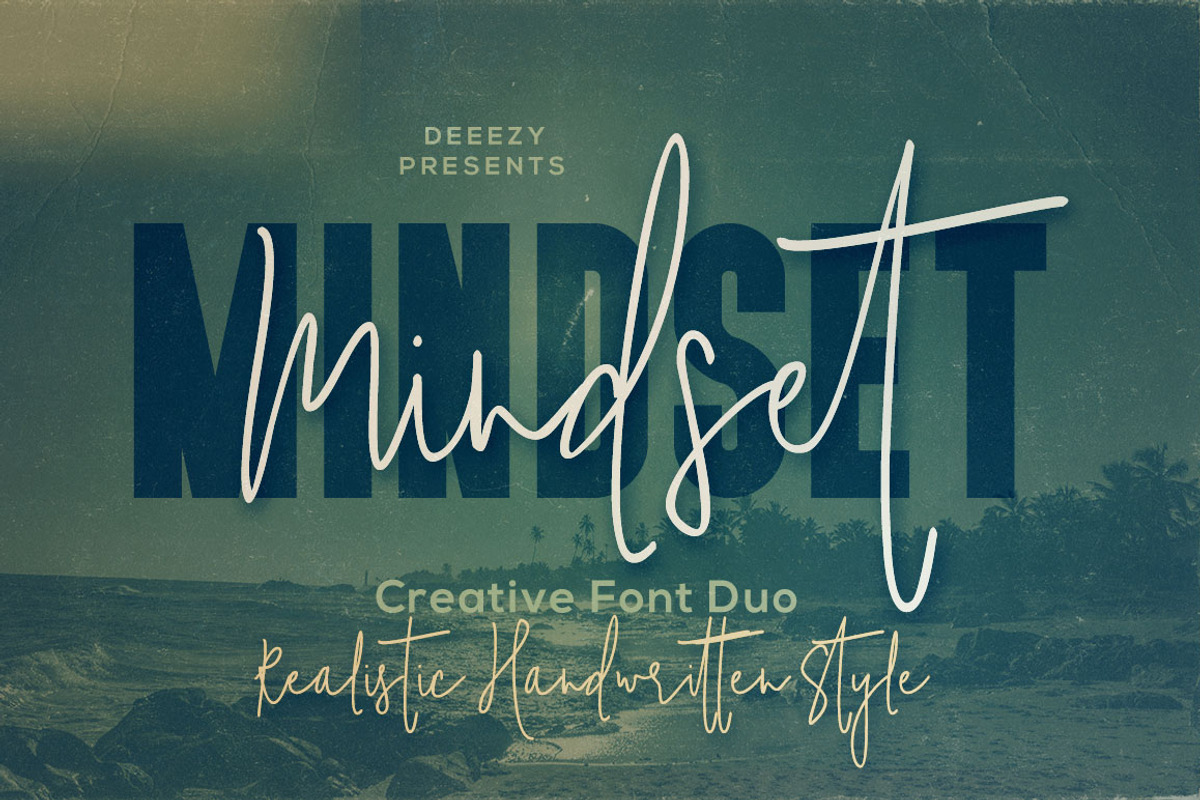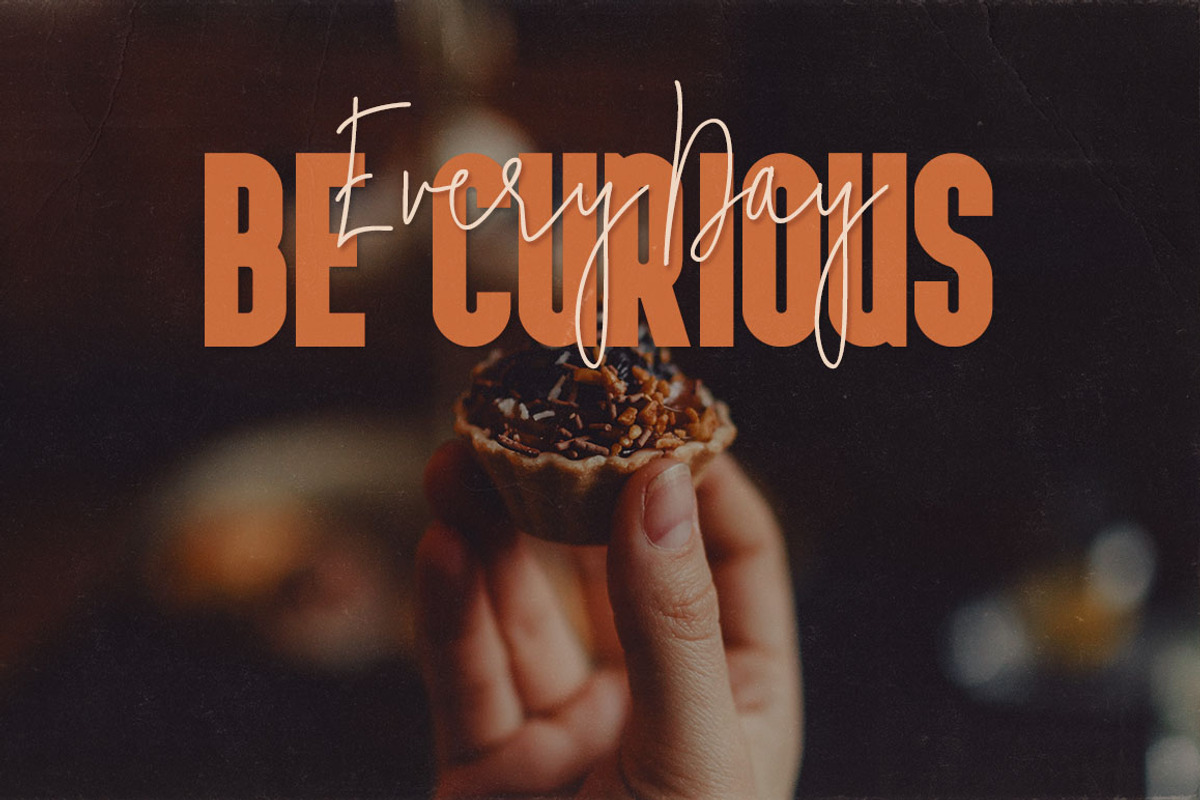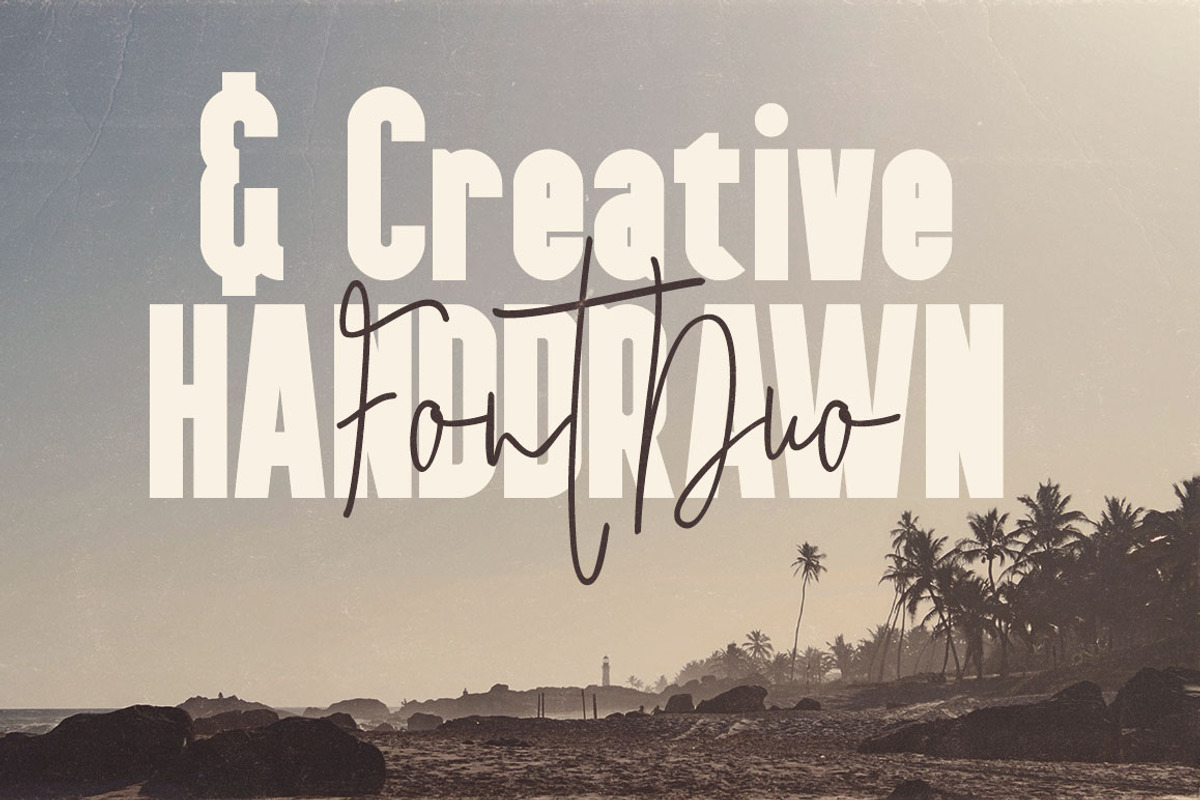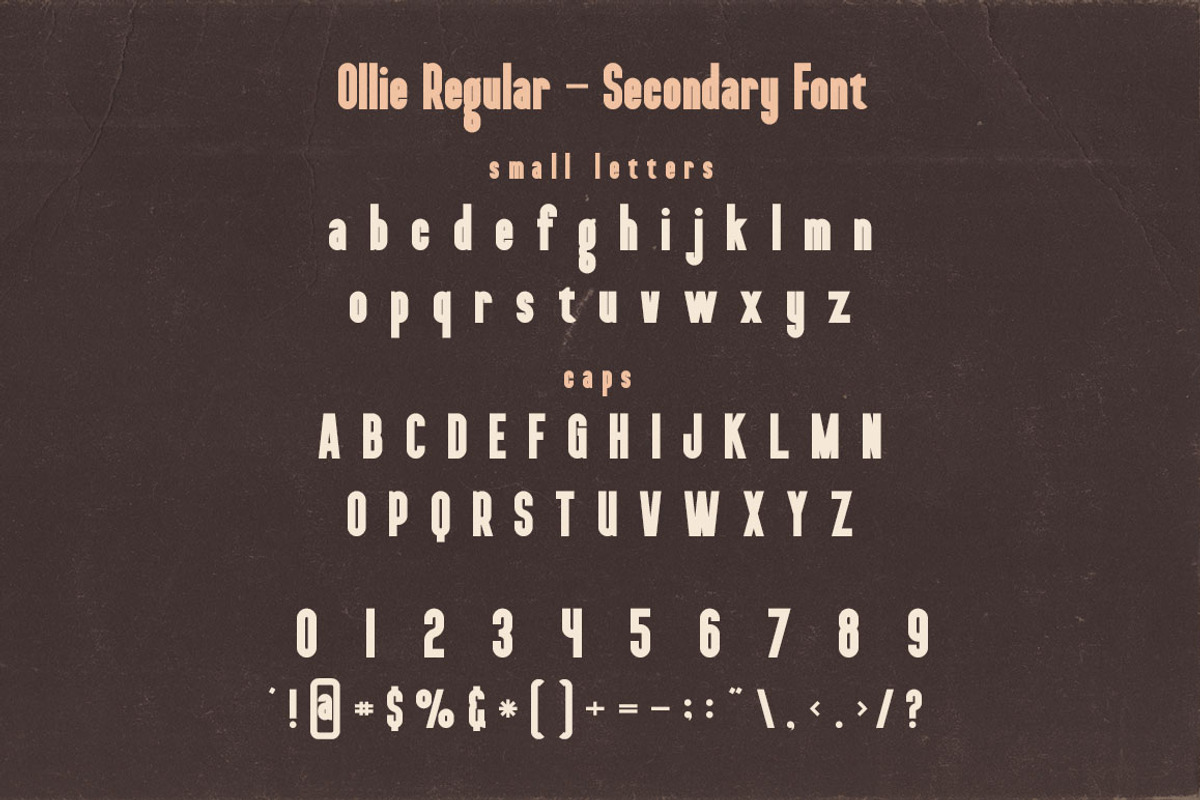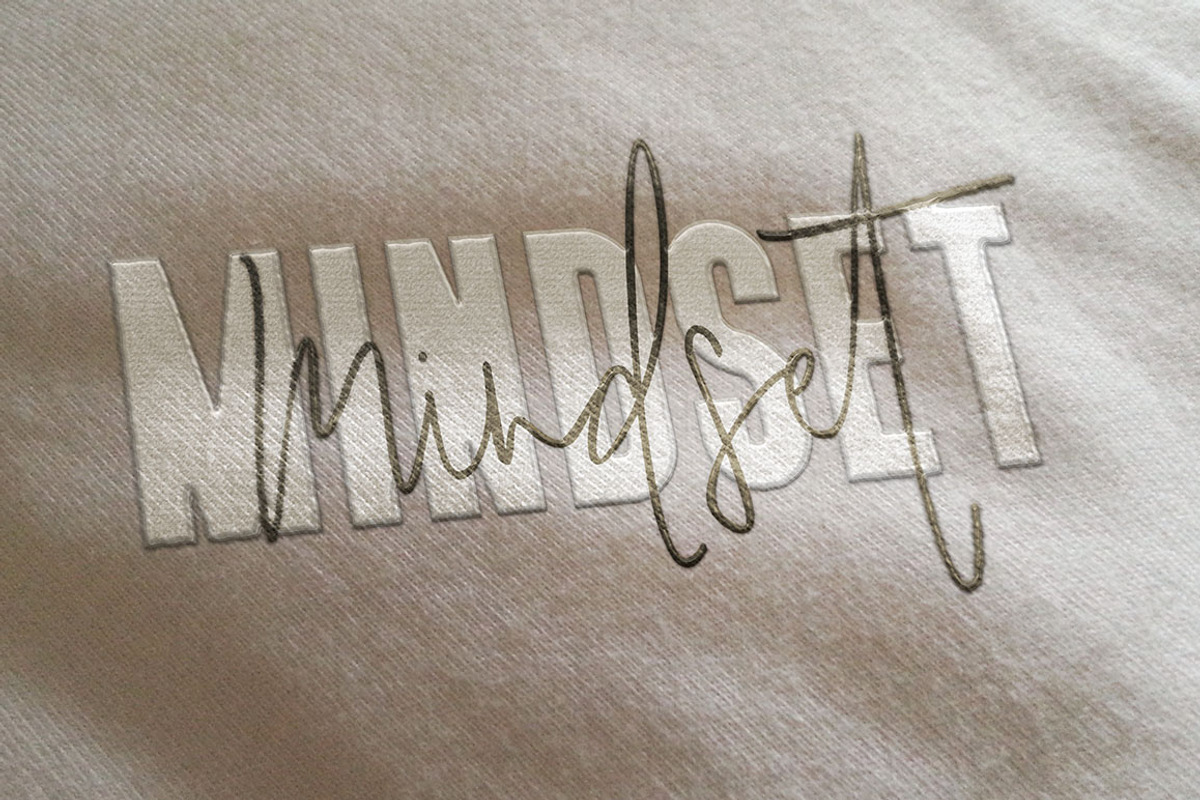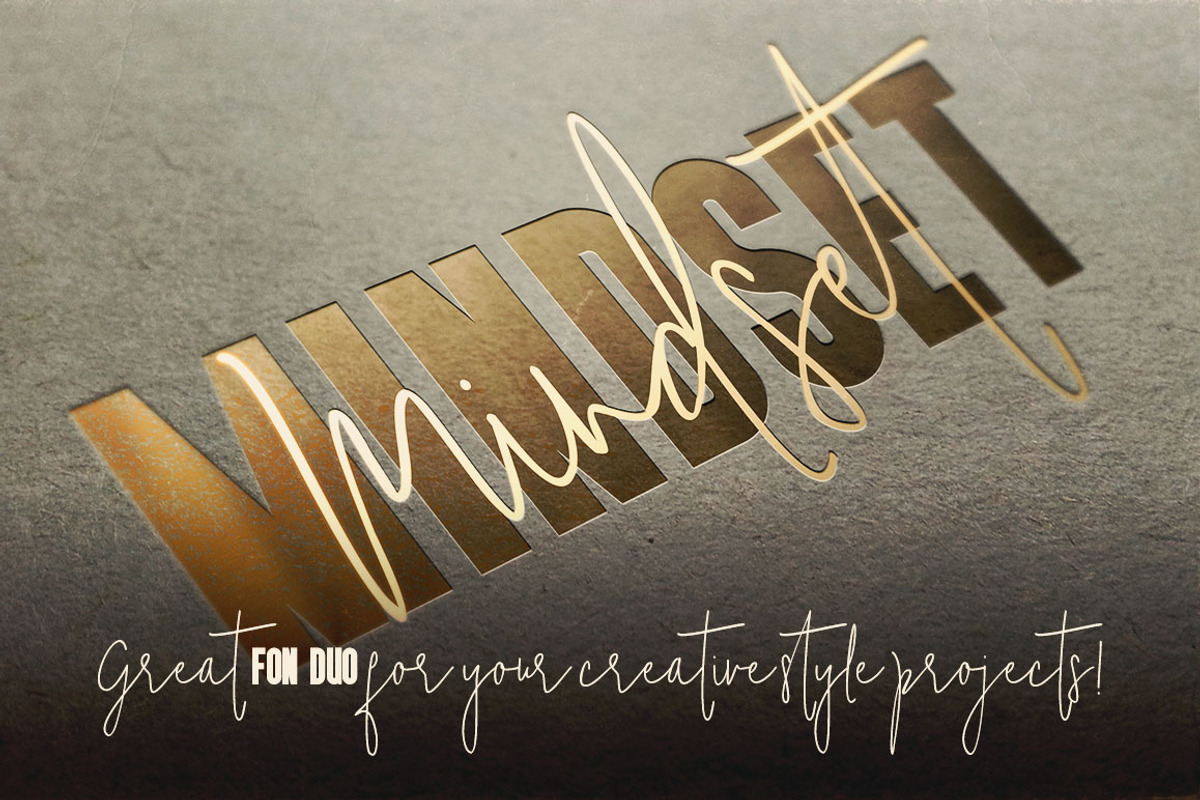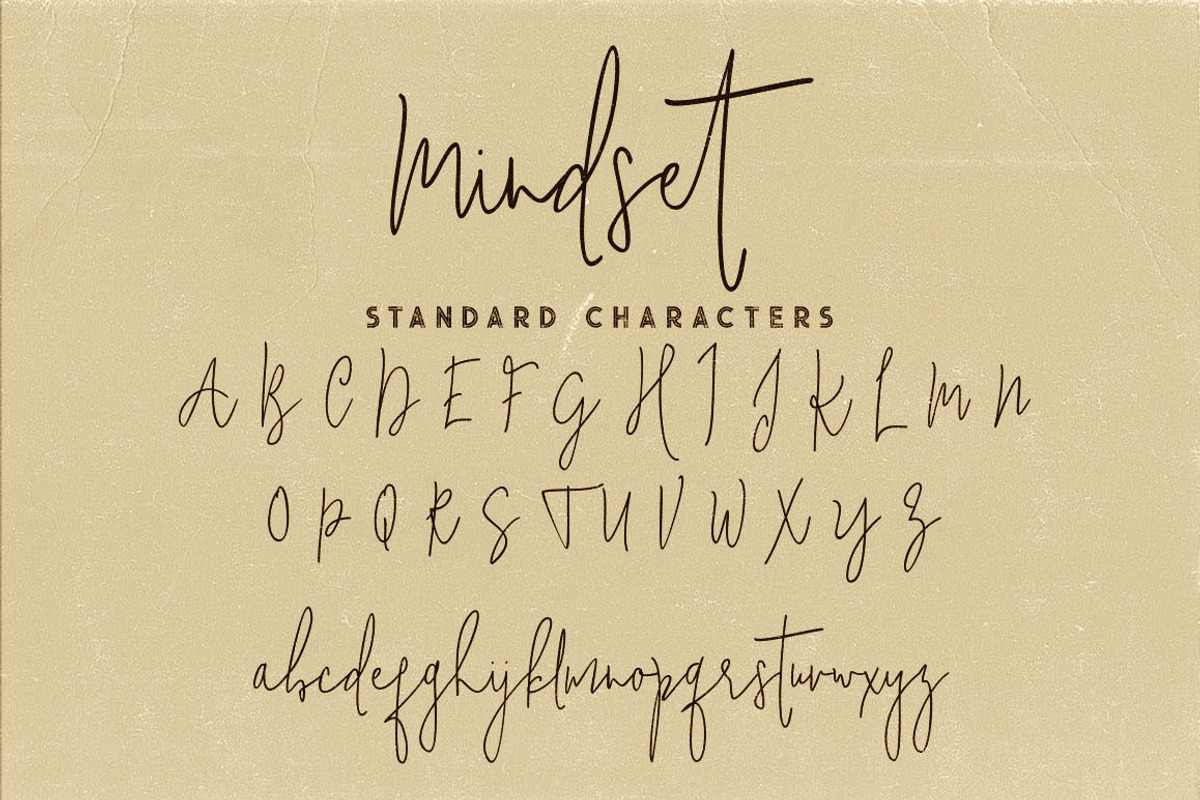
Mindset Font Duo
Crazy & handwritten or hand subscribe style script font + bold sans serif font for your new projects. Script font is with multi language support and lot of stylistic alternates. Enjoy ;)
- Script font is with multi language support and lot of stylistic alternates.
Mindset Font Duo by Deeezy fits naturally into Branding, posters, packaging, typography.